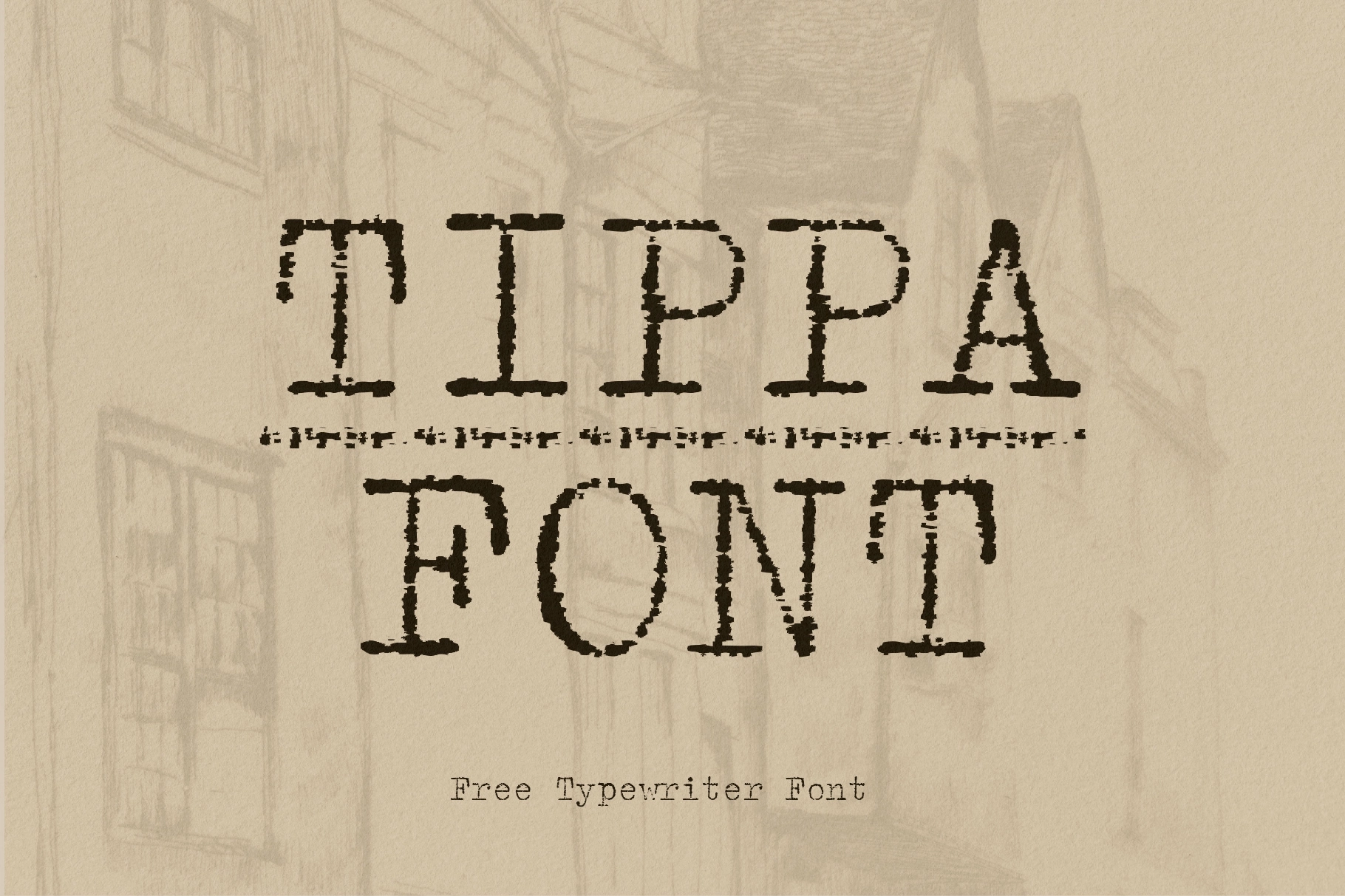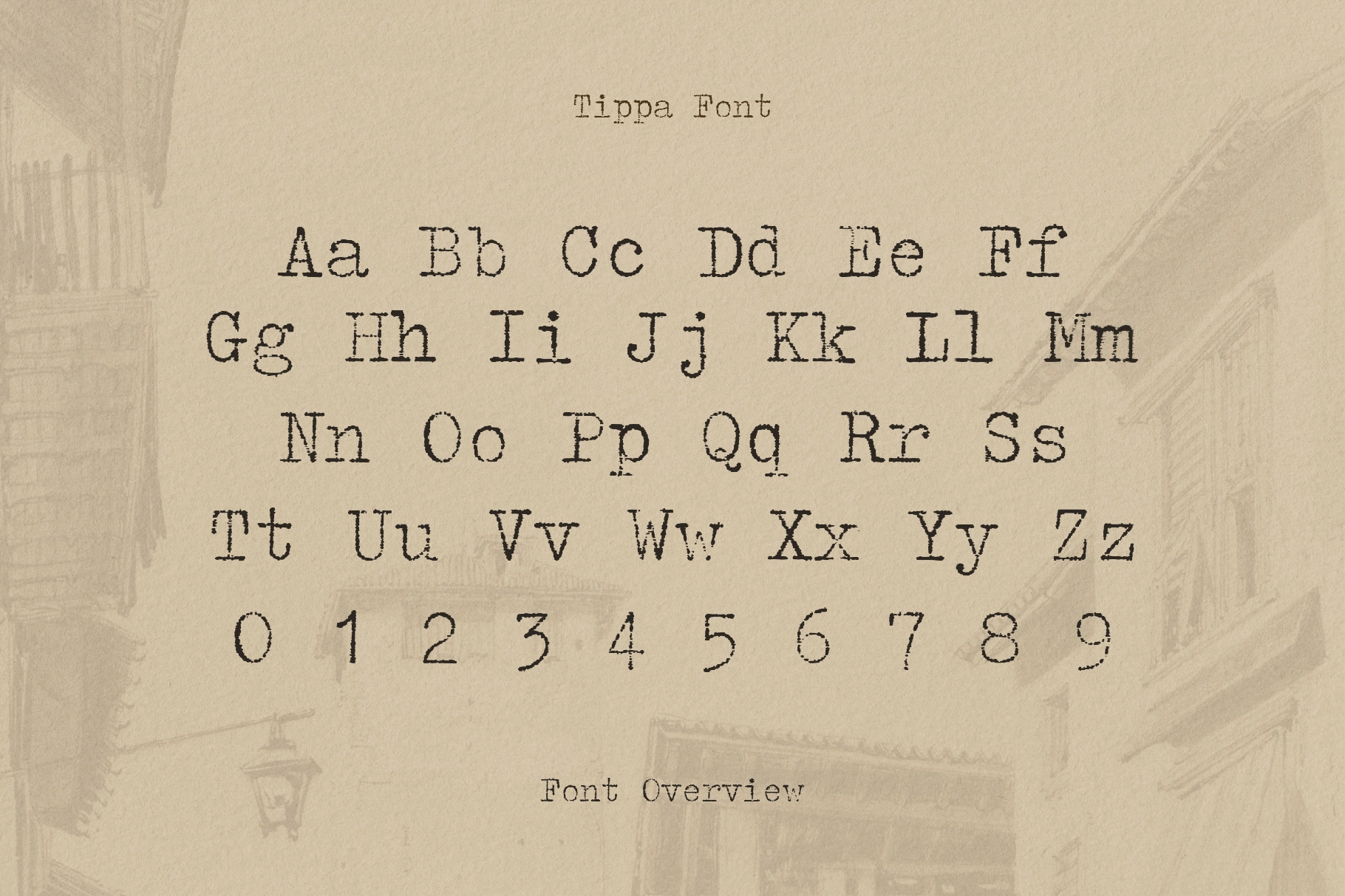
Tippa Font
Tippa
Tippa is a live-in typewriter serif with rounded slabs and speckled ink breaks. Its characters feature frayed edges, light wobbles, and subtle misalignments that echo an aging ribbon on a stubborn machine.
The font's dry, archival clarity suits editorial spreads with a retro bite, analog-leaning branding, crime and history book covers, memo-style posters, museum labels, packaging for coffee, tools, or stationery.